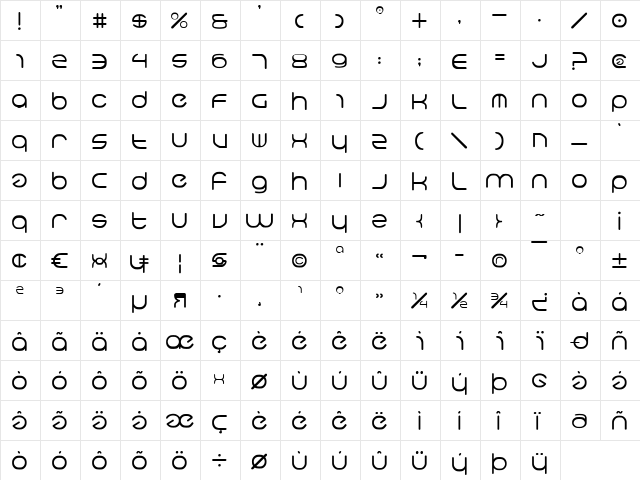
neo-geo regular
Design Context for neo-geo Typeface
neo-geo takes a measured approach to typography — its balanced proportions and neutral character make it a reliable workhorse for both digital and print work.